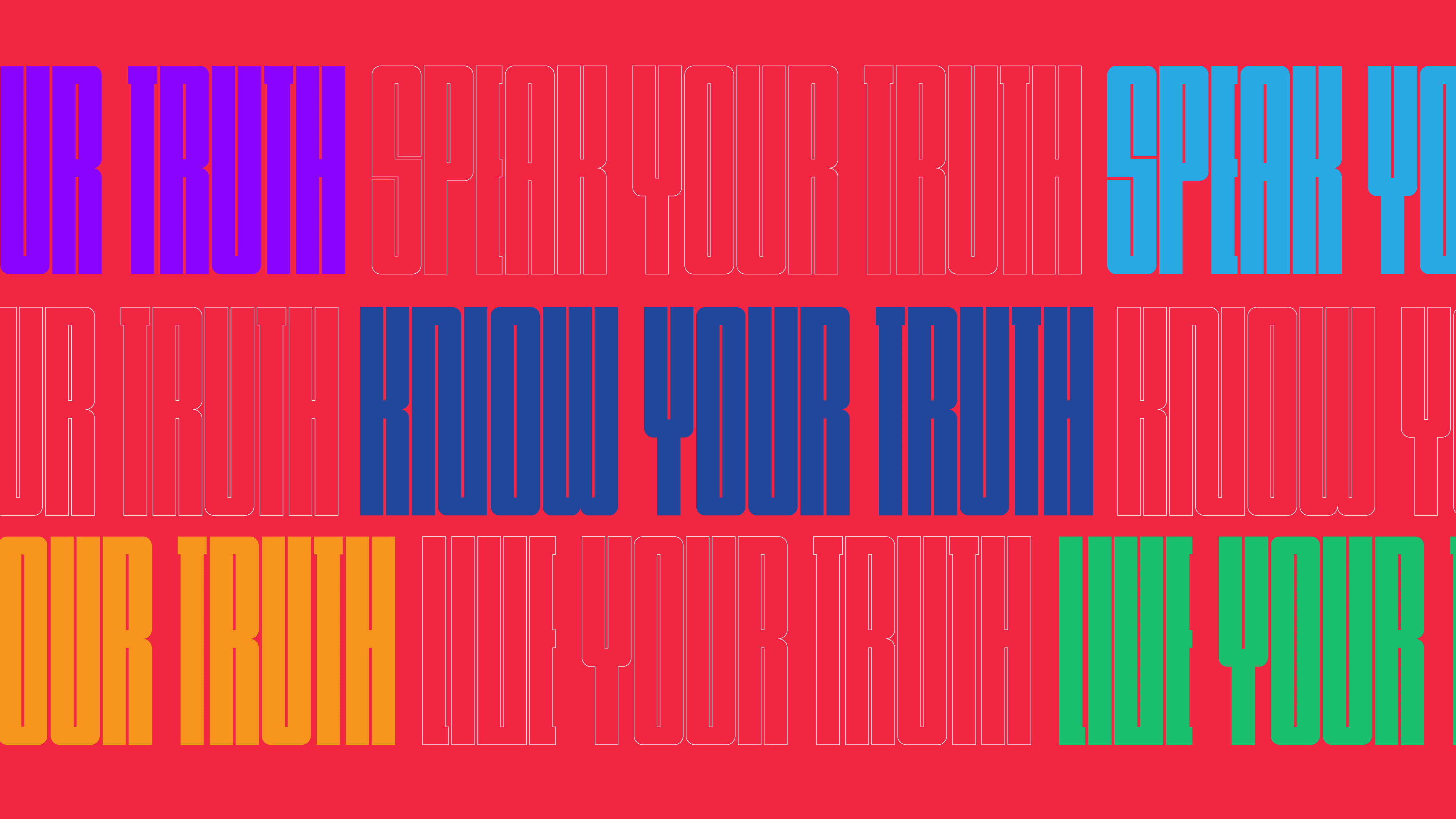
50 free modern fonts to download for a contemporary look
‘Form follows function’ in modernist design and the principle certainly applies to modern fonts. Based on geometric lines and forms, modern fonts are clean, clear, and easy to read; plus with a creative twist or dash of detail they have a cool, contemporary vibe.
01. Lombok
Alexandre Pietre
You’ll quickly see from these 50 free fonts that modern fonts are overwhelmingly sans serif typefaces; that is, there is no projecting lines or curls at the ends of a letter. Lombok by Alexandre Pietre is very angular and geometric with divided forms and doubled lines.
02. Ailerons
Adilson Gonzales de Oliveira Junior
Ailerons is a font by Adilson Gonzales de Oliveira Junior inspired by airplane models from the 1940s. The ends of each letter are angled and ever-so-slightly curved for delicate detail.
03. One Day
Nawras Moneer
One Day is a slimline and uppercase font by Nawras Moneer. Its rounded forms and broken lines will add visual interest to any headline.
04. Cooper Hewitt
Chester Jenkins
When the Cooper Hewitt Smithsonian Design Museum had a facelift—revitalizing its building and identity—it also engaged designer Chester Jenkins to create a contemporary sans serif font that is available free for public use. Now that’s democratic design.
05. Aqua
Laura Pol’s font Aqua has very straight lines that contrast with very rounded forms. The strong angles dominate the uppercase letters while smooth circles rule the lowercase.
06. Kolikö
Fontfirma
The Kolikö font family by Fontfirma has Latin and Cyrillic characters in regular, thin, and bold styles. It is a geometric sans serif font with a clean structure for bold headlines.
07. Polya
Adrien Coquet designed the Polya font inspired by low-poly – a polygon mesh for 3D computer modeling. The result is a font with bold forms and a lightweight look.
08. Radnika
Alfredo Marco Pradil
Alfredo Marco Pradil describes his Radnika font as a “workhorse type.” It is a multi-purpose typeface that bridges the gap between the strong and expressive nineteenth-century typefaces and the fine and stern twentieth-century typefaces. The ‘medium’ style is free for download.
09. Modeka
Gatis Vilaks
Modeka by Gatis Vilaks is a light and elegant font that combines corners with rounded details. The result is a set of characters with visible junctions between the parts of each element.
10. Higher
Marisa Passos designed Higher for a student project and has since offered it for free public use. Ideal for headlines, Higher is elongated with the identifying forms of each letter condensed to the upper or lower section of each character.
11. Nordic
Nordic is an experimental typeface designed by Yana Bereziner. It was inspired by Norwegian runes, which are the letters used in various Germanic languages before the adoption of the Latin alphabet.
12. Komoda
Komoda is a slimline font designed by Asia Ang. It works well as a display typeface for headlines and titles and it looks smart and modern here, simply enclosed in a rectangular outline.
13. Kollektif
Brave New Fonts
Brave New Fonts designed this brave new font Kollektif as an alternative to low-contrast twenty first-century typefaces. It can be used for display and blocks of text with two styles and two weights available.
14. Achi
Achi is Shibu PG’s first experimental font. It’s modern and contemporary and the double-outline stems and strokes add a touch of Art Deco detail.